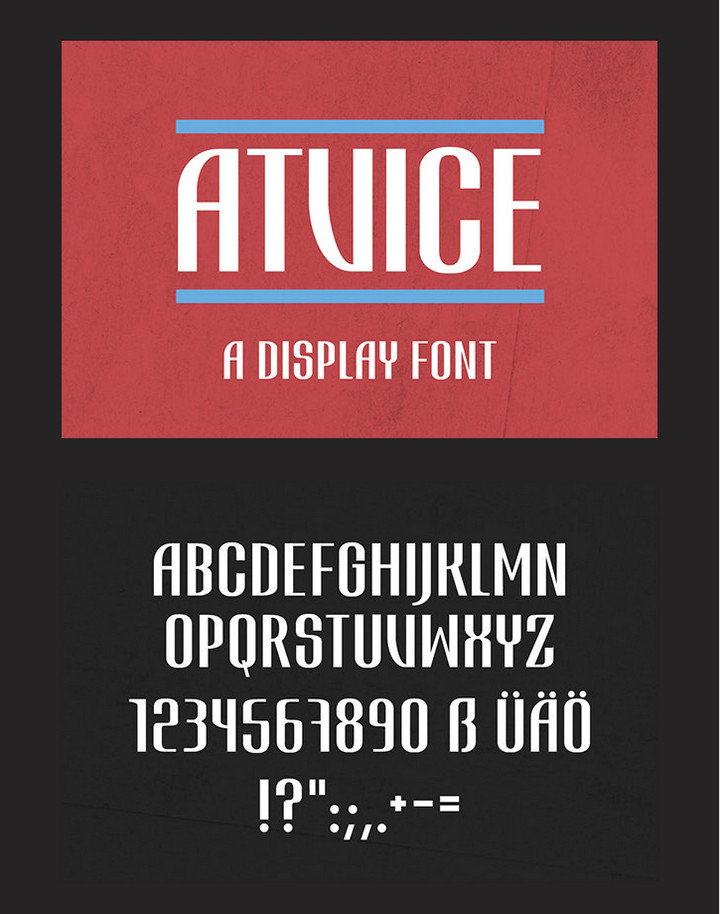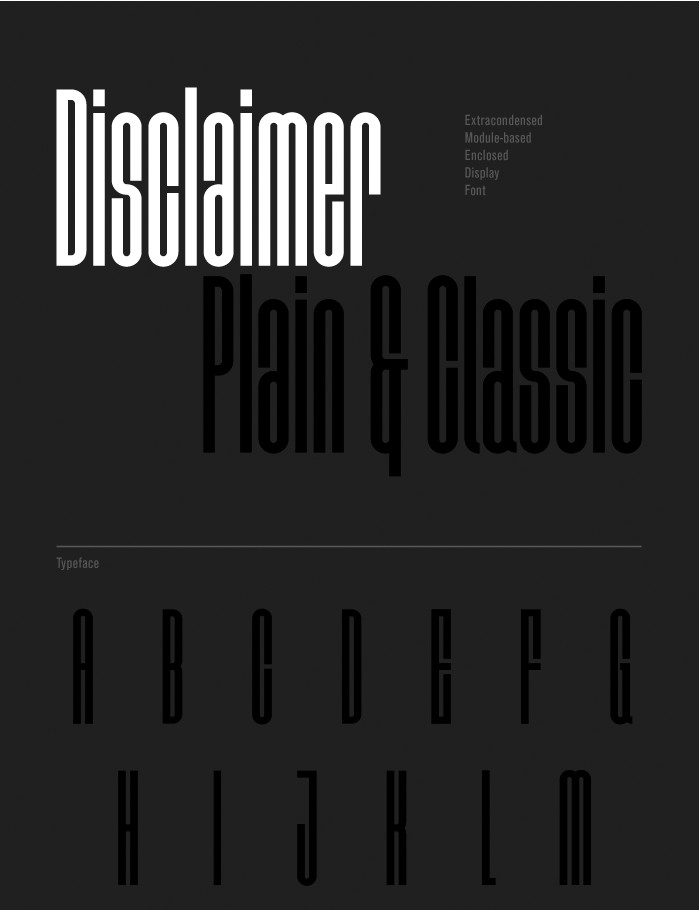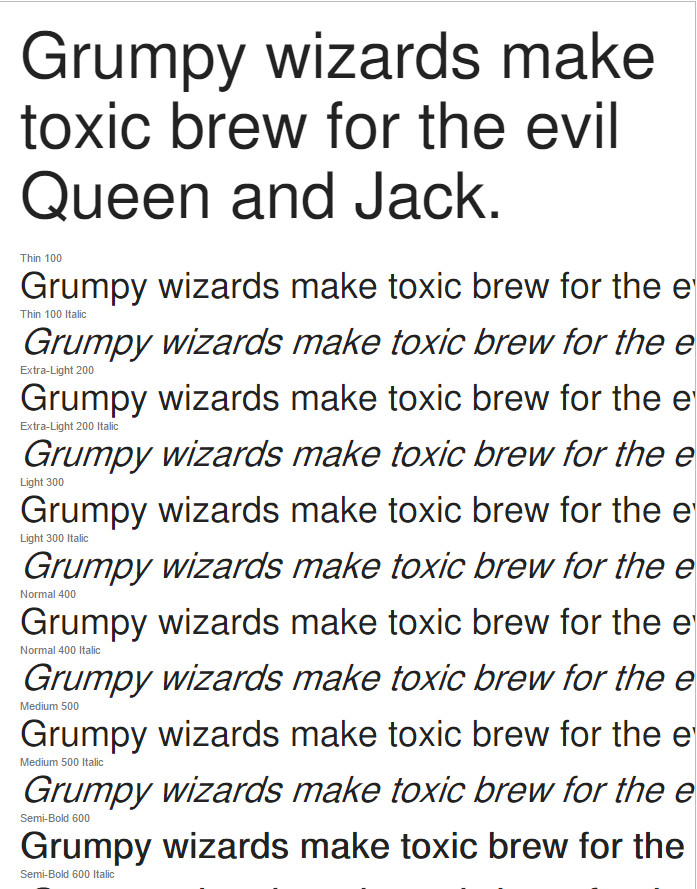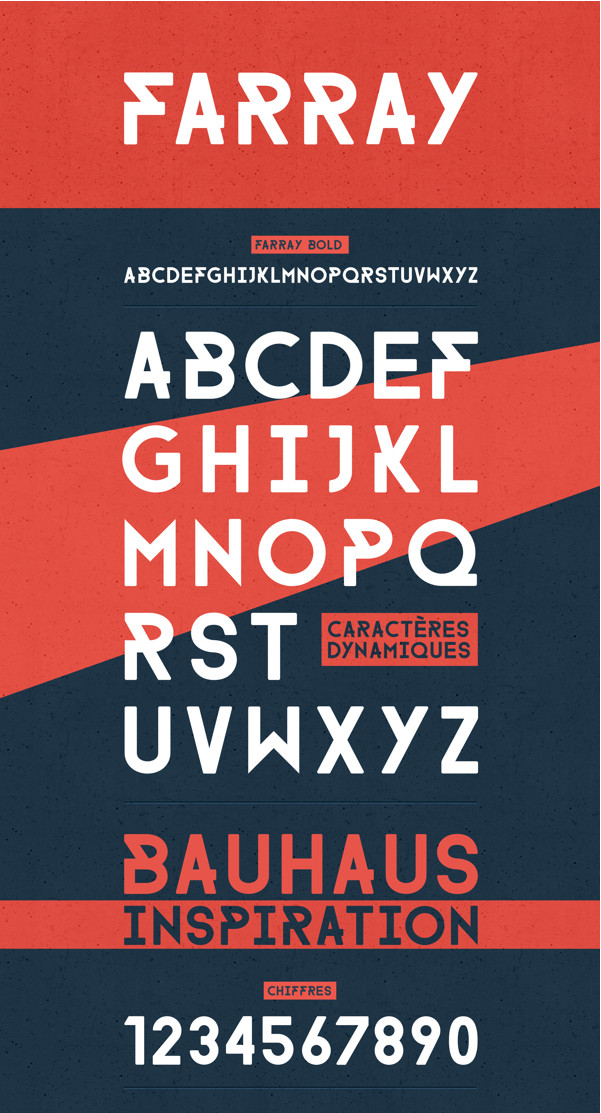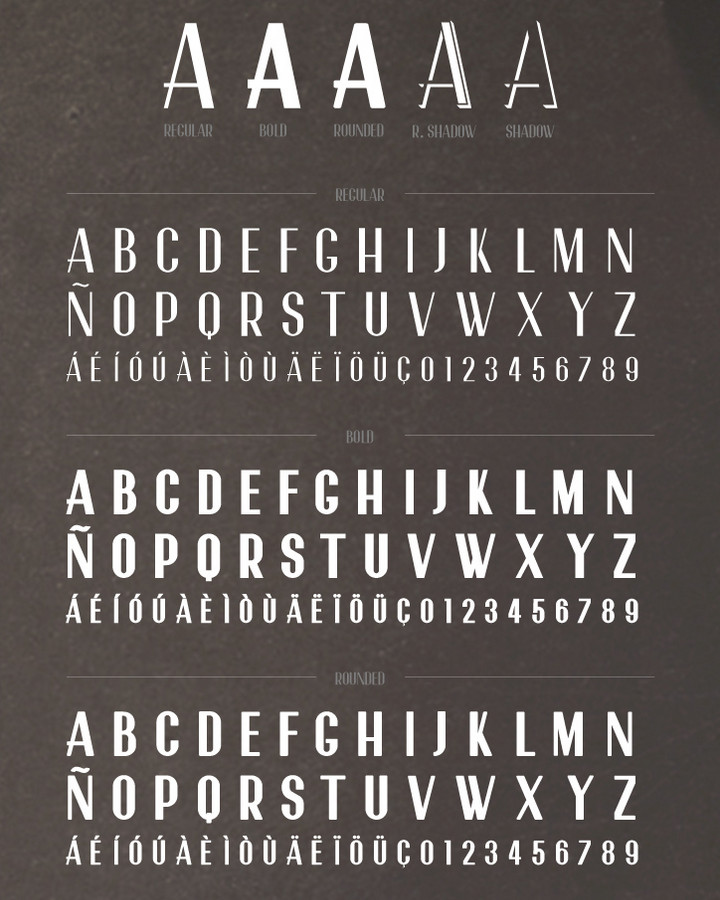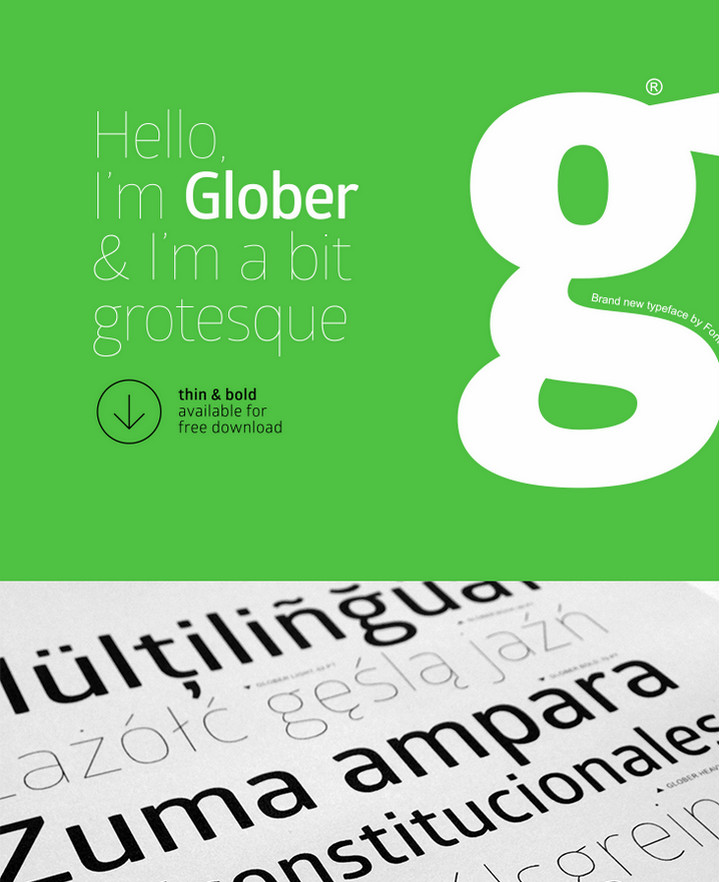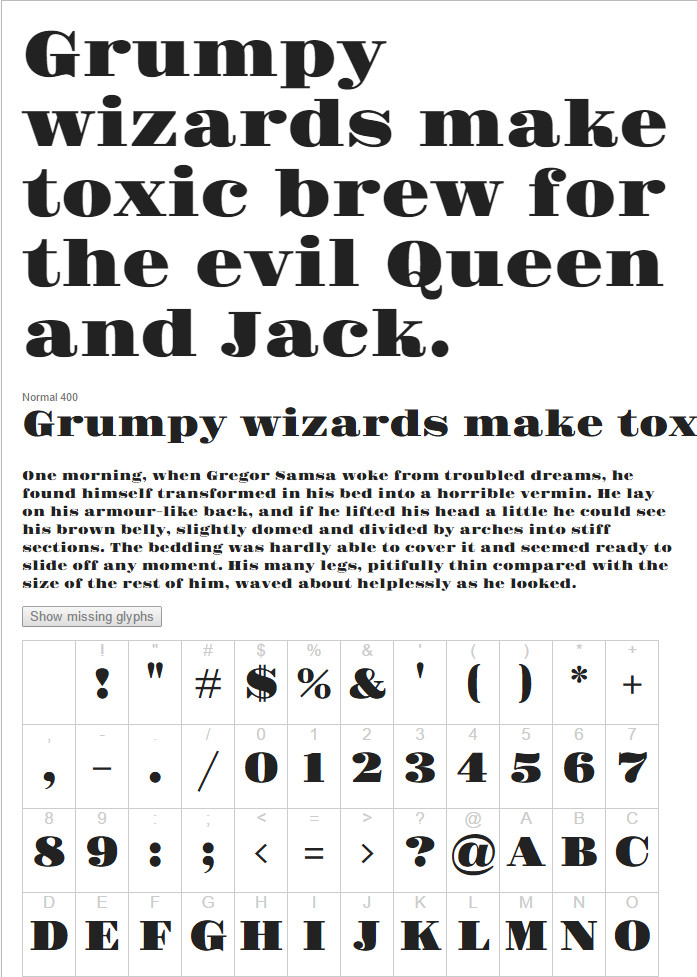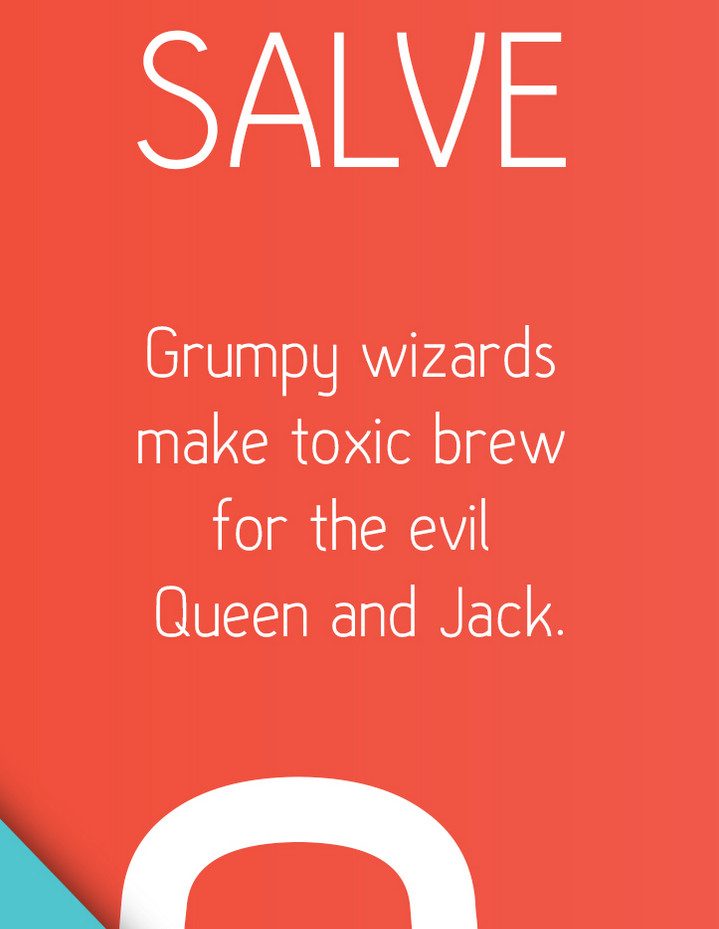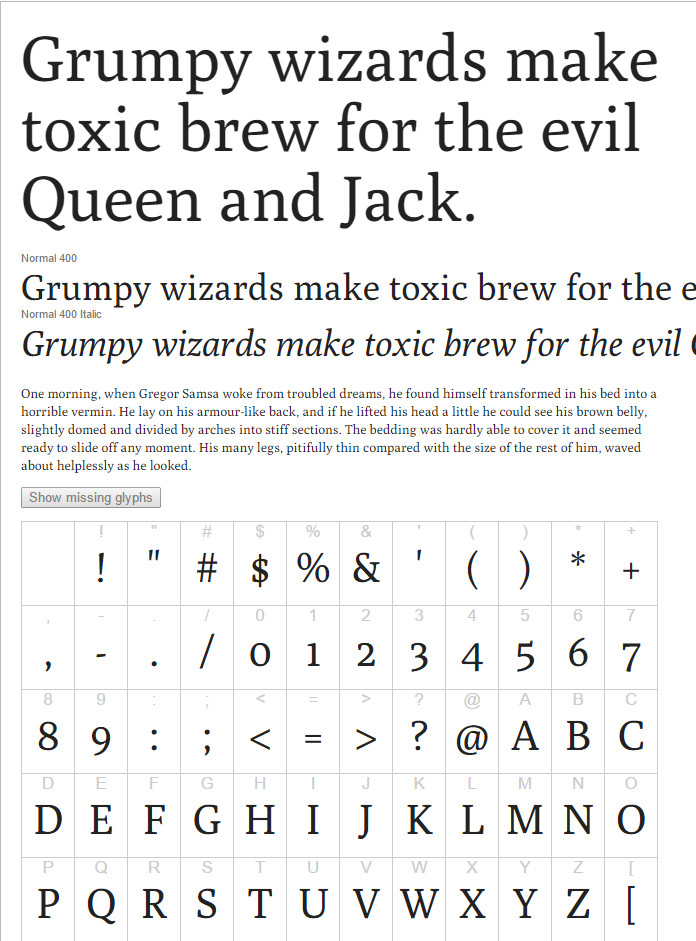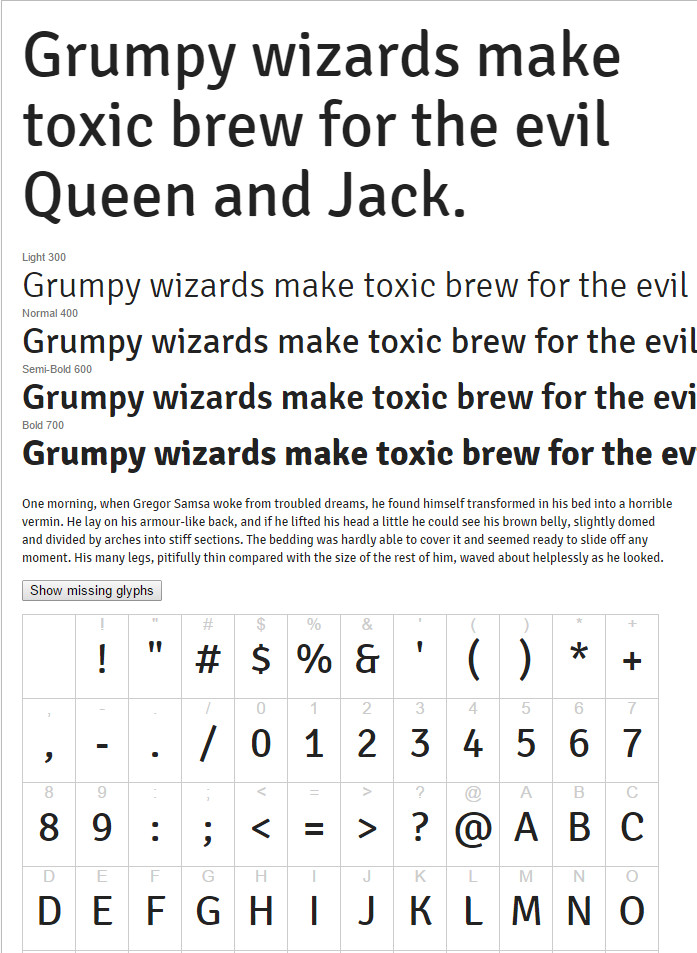
30+ Best Free Fonts for Graphics and Web Designers
Fonts, definitely plays very important role, when it comes to web design and graphics. If you want to design but attractive website, typography could be a great staring place for you. In order to design an attractive typography, the first thing you need to consider is the font. When you look for fonts in the internet, you can easily find 100s of free fonts available for download but it takes your time to find proper font to fit in your project. To simplify your search for best free fonts we have a list of more than 30 free fonts for you in this article.
30+ Best Free Fonts for Graphics and Web Designers
1. Campton
Based on the neutrality concept, Campton is a geometric sans serif font. The font could be used in graphic illustrations, corporate designs or interactive designs.
Campton
2. Oswald
Among the few fonts that were first featured by Google in its web fonts, Oswald was a notable one. A recent update has provided this popular font with more weights and a better kerning.
Oswald
3. Rosario
The creators of Rosario have described the font as a semi-serif typeface. The smooth endings and the light contrast of the font will add an additional attraction to your design.
Rosario
4. Roboto Slab
Designer Christian Robertson has created a whole bunch of fonts under the Roboto family, and Roboto Slab is a popular member of that family. The font could be used both in the titles and in the description.
Roboto Slab
5. Farray
Designed by Adrien Coquet from France, Farray is an interesting font. If you are looking for a font to impress your audience, you can definitely consider this font.
Farray
6. Asgalt
This sci-fi inspired font family is provided with perfect geometric designs and 100 different caps. It could be used in product promotions or any other technology related designs.
Asgalt
7. Stalemate
The very personalized look of Stalemate has made an excellent choice for using as display a font. The font was originally designed by Jim Lyles.
8. Crimson Text
If your project requires a balanced serif font with a solid impact, you can safely consider Crimson Text. Being heavily inspired by fonts like Garamond, this font comes with attractive uppercase forms.
Crimson Text
9. League Gothic
Though this font was originally designed in 1903, it has been renovated recently. Commissioned by WND.com, the font features some extra glyphs now.
League Gothic
10. ANEA
Taking inspiration from the Roman soldiers, designer Veronica di Biasio has created the ANEA font. It comes with alphabets, numbers and gliphs.
ANEA
11. Nulshock
This wide, industrial font comes with optical compensation and precise curves. The font was especially created for logos, indicators, product or brand names, titles, labels, headlines etc.
Nulshock
12. Gravitas One
Based on the UK fat face font, Gravitas One is created by Riccardo De Fransceschi. This font could be used in headings, tabs or in any titles.
Gravitas One
13. Jura
Inspired by the Roman alphabets, designer Daniel Johnson has created Jura. The font is available in multiple weights including light, book, medium etc.
Jura
14. Fjord One
Being designed for printed books, Fjord is perfect for using in long paragraphs. The low contrast, sturdyconstruction and long ascenders and descenders has made this serif typeface a very attractive choice.
Fjord One
15. Recharge
This wide, square font is perfect for using in designs related to the electronics, automotive, military, sports industries. The font family includes fractions, math symbols and monetary symbols too.
Recharge
16. Poly
This font was originally designed for Wayuunaiki, an indigenous language. However, with its high x-height and short ascenders, Poly could be an excellent choice for using in small sized text.
Poly
17. Gentium Basic
Including Latin, Greek and Cyrillic scripts, Gentium Basic was released as an open font. In its current form, the font is restricted to Latin character set only.
Gentium Basic
18. Signika
Following the likes of Tahoma and Meta, Signika is a clearly laid out font with special focus on signage. The sans-serif font is provided with a high x-height and low contrast.
19. Forum
Looking for an uncommon font to use in your all-caps headlines? Forum should be one of your choices. The elegant proportion of the font makes it look better in larger sizes.
Forum
20. Exo2
Developed by Natanael Gama, Exo2 is a contemporary sans serif font. With italic version for each eight, this is one of the few complete free available at this moment.
Exo 2
21. Aleo
Aleo is a semi-rounded companion to Lato. The sleek and strong look of the font have made it a perfect choice for increasing readability.
32. Choplin
As this font was inspired by the Campton family, you will find the same principles like the neutrality, simplicity and the perfect geometry. Therefore, you can use Campton and Choplin as companion fonts in your design.
Choplin
33. SkolaSans
The SkolaSans family consists of 20 different font styles. Designed by Lasko Dzurovski, this font family comes with both English and Russian alphabets, numbers and special characters.